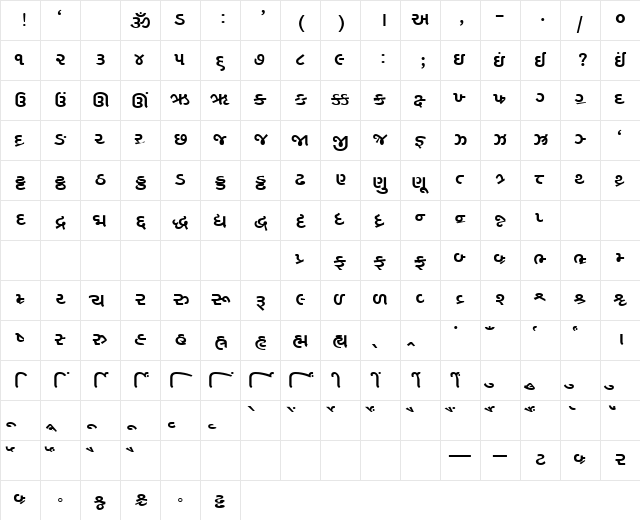
AkrutiGujAmita Normal
Design Context for AkrutiGujAmita Typeface
AkrutiGujAmita offers clean, dependable letterforms without strong stylistic allegiance, making it a practical choice for designers who need flexibility.